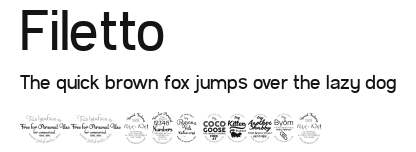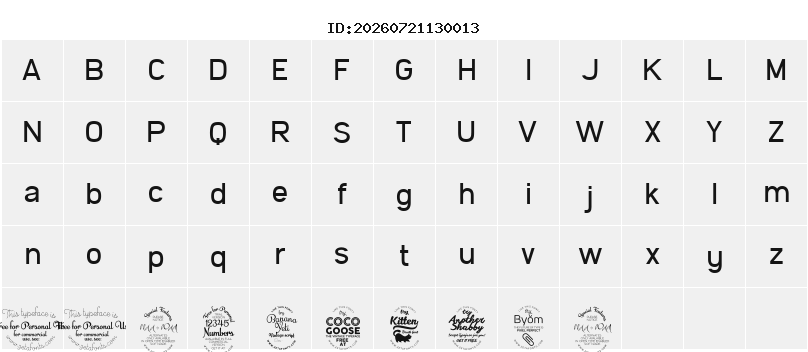
• Font Name: Filetto
• Full Font Name: Filetto
• Designer: Francesco Canovaro, Debora Manetti, Katiuscia Mari
• Manufacturer: Studio Kmzero
About Filetto.ttf
Filetto.ttf is a modern, elegant sans-serif font designed for ultimate readability and visual harmony. Perfect for branding, headlines, web design, and print materials.